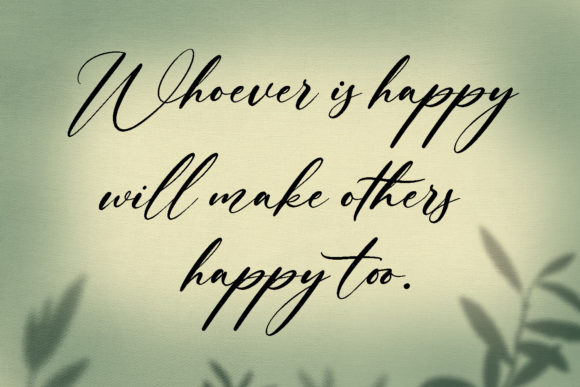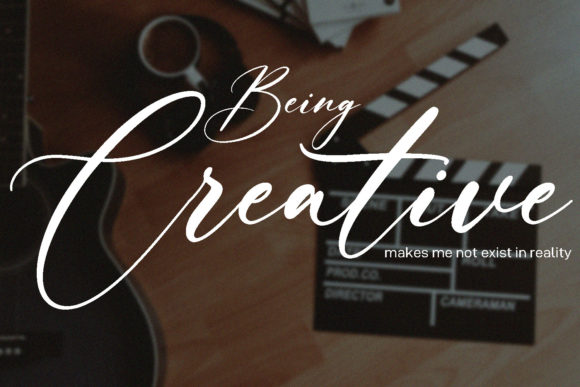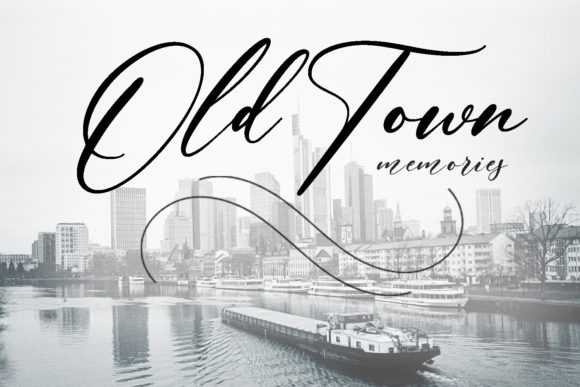
Introduction to Criquella Script Font
Criquella Script is a beautiful and stylish script font.
Fall for its ravishing style and use it to create gorgeous designs This font is PUA encoded which means you can access all glyphs and swashes with ease.
Why Choose Criquella Script Font?
Criquella Script Font offers exceptional quality and versatility, making it a valuable addition to your design toolkit. Whether you’re creating for personal projects or commercial use, Criquella Script Font delivers professional results.